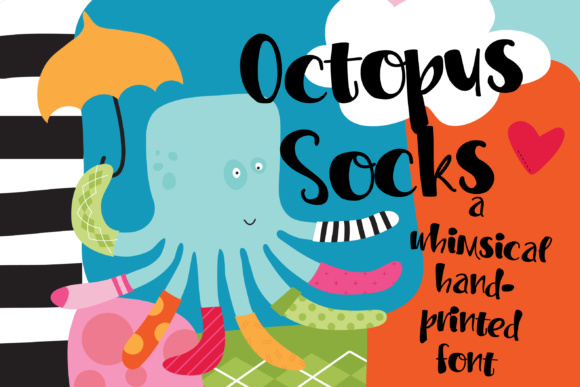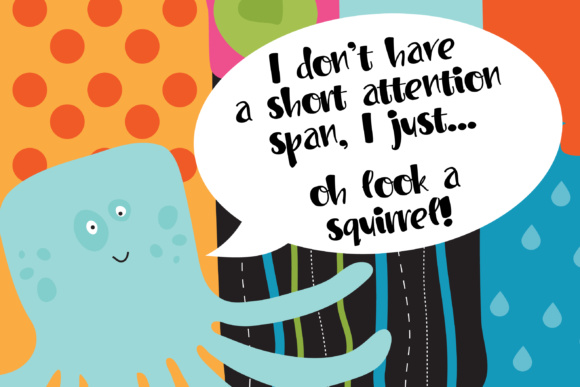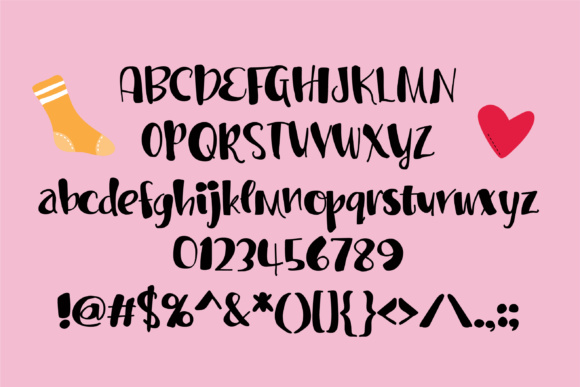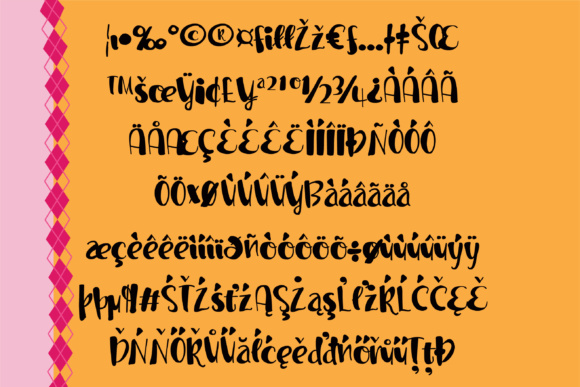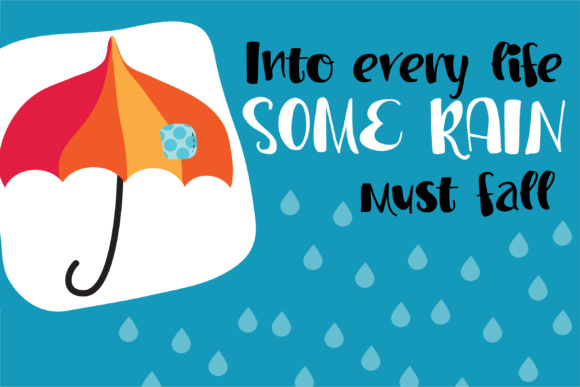
HomeScript FontsPN Octopus Socks Font Script Fonts PN Octopus Socks Font FacebookXPinterestWhatsApp PN Octopus Socks Font Poster 2 PN Octopus Socks Font Poster 3 PN Octopus Socks Font Poster 4 PN Octopus Socks Font Poster 5 About PN Octopus Socks Font This fun and whimsical font is hand-drawn and has an interesting mix of thick and thin lines. DOWNLOAD ON CREATIVE FABRICAThis font is sold and delivered by Creative Fabrica. Font Canyon may earn a commission if you buy through this link. People also explored Gustavo Eastwood Font Merry Christmas Font Malahayati Script Font Nathan Classic Font Marlyn Font Rozalyn Sweet Handmade Winter Season Font Brigattin Font 275 0 TagsPN Octopus Socks Font Previous articleAja FontNext articleEvil Olivia Font LEAVE A REPLY Cancel reply Comment: Please enter your comment! Name:* Please enter your name here Email:* You have entered an incorrect email address! Please enter your email address here Website: Save my name, email, and website in this browser for the next time I comment. Personal Use Free Batik Classic Personal Use Free Read more about this font Happy Camping Personal Use Free Read more about this font Mandarins Personal Use Free Read more about this font Ammanda Personal Use Free Read more about this font BLOG Exploring Font Trends Shaping Communication in the Digital Era Fonts, like all design elements, are subject to trends. They play a crucial role in communicating a brand's personality,... Best Fonts for T-Shirt Design – Top 2025 Picks Top 10 Handwritten Fonts That Elevate Your Designs Free Fonts Risk: Why Free Fonts Can Be Dangerous for Designers